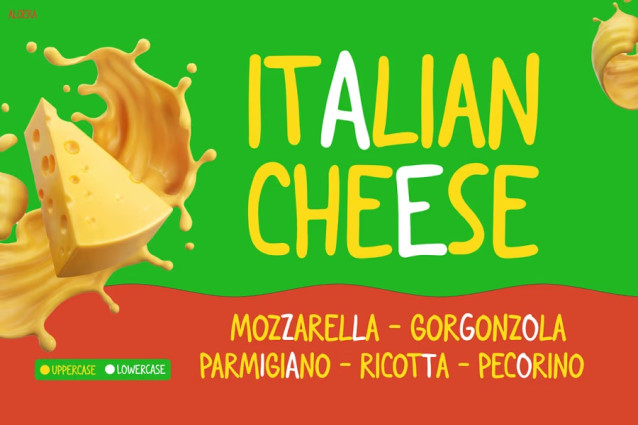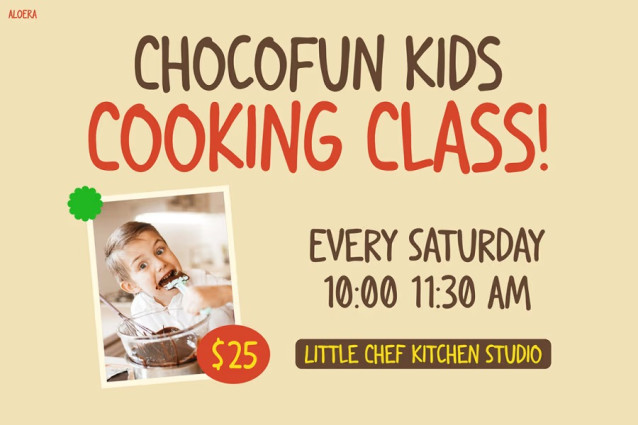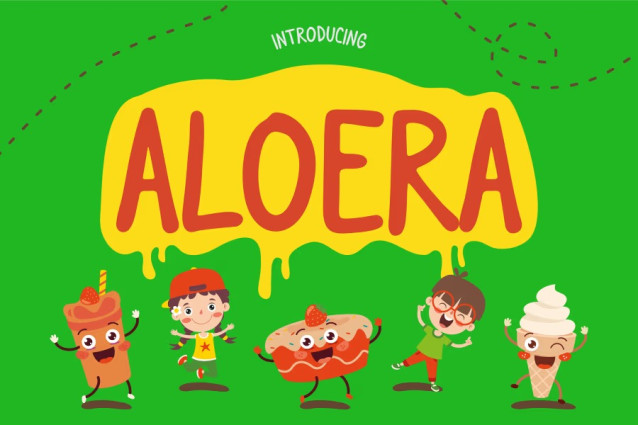
Aloera Font
Aloera Font is a cheerful, hand-drawn typeface made to fill your designs with happiness and fun. Each letter feels natural, smooth, and full of energy. Moreover, its rounded strokes and bouncy rhythm create a joyful vibe that sparks imagination. The design looks simple yet lively, making it perfect for playful and creative projects.
This typeface brings a great balance between readability and personality. It feels friendly, yet it stays clear and professional. Also, every character looks crafted with care, adding a lovely handmade touch to your work. You can use it for big, bold titles or smaller, expressive text—either way, it looks bright and engaging.
Additionally, you’ll love how Kids Font Aloera makes your visuals feel fresh and alive. It fits beautifully into learning materials, snack packaging, classroom boards, and storybooks. Each letter adds charm, turning ordinary words into something joyful and memorable.
Perfect For
Kids Font Aloera is perfect for teachers, designers, illustrators, and brand creators who love fun and expressive designs. It works well for children’s books, educational posters, kids’ apparel prints, and toy packaging. Furthermore, it’s an excellent choice for birthday invitations, school promotions, or family-friendly branding that needs a warm and happy look.
Besides that, marketers and educators will appreciate how Aloera easily creates visuals that feel approachable and energetic. It helps audiences connect instantly while keeping the message light and positive. If you’re looking for a font that mixes creativity, joy, and clarity—Aloera is your perfect match.
Make Your Designs Smile!
Bring joy to every creation with Kids Font Aloera. Its playful spirit adds charm, while its friendly curves make every design feel alive. Therefore, it’s the ideal typeface to express excitement, creativity, and positivity. Use Aloera to make your words dance, sparkle, and smile on every page!